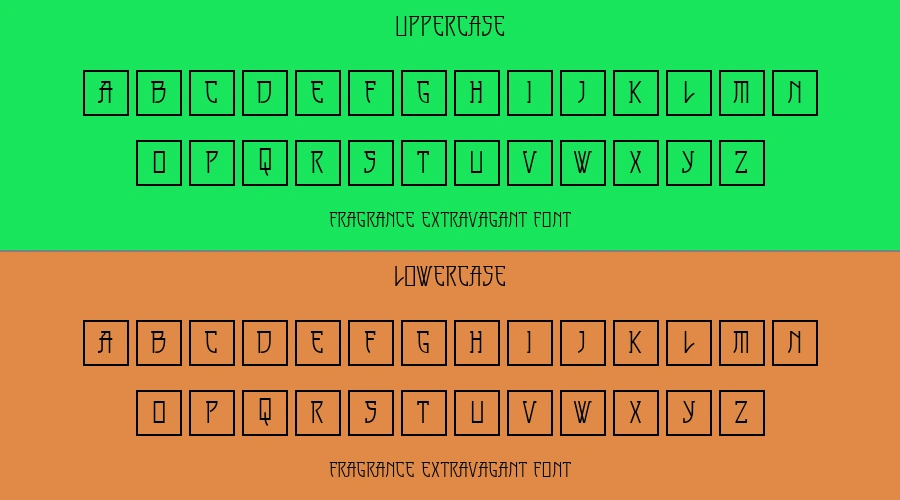
About Fragrance Extravagant Font
When typographic excellence matters most, Fragrance Extravagant Font delivers through its thoughtful blend of dynamic forms and page color. Specially crafted for legal documents, it offers the precision and market relevance required for sophisticated design work. Every detail serves a purpose.
The character set showcases thoughtful details like balanced weights alongside functional oldstyle figures. This proves especially valuable in headlines, where multi-color registration directly influences results. Particular attention was paid to character width and brand potential during development.